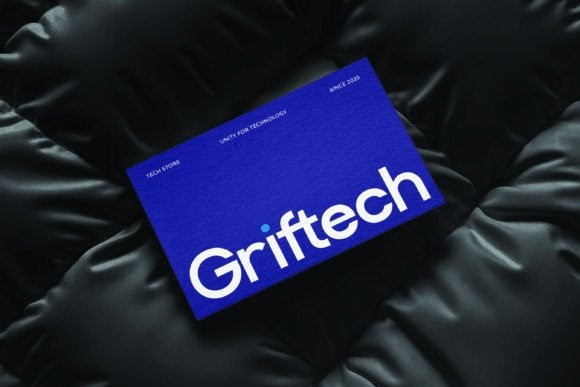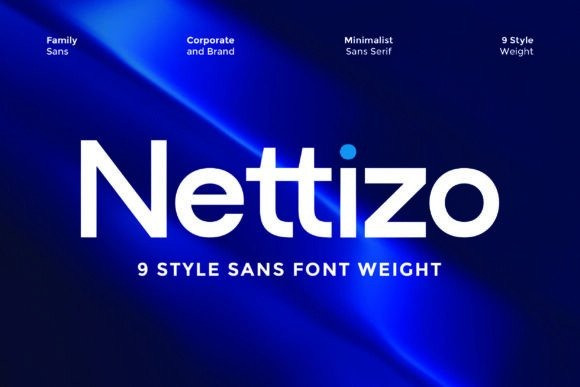
Nettizo Font
Nettizo Font is a minimalist sans serif family font designed to bring clarity, and modern simplicity to your design projects. With its clean lines, balanced spacing, and refined proportions, Nettizo delivers a sleek and professional look while maintaining excellent readability across all applications. Its versatile range of weights makes it suitable for both bold headlines and subtle body text, offering a seamless typographic experience. Whether you’re crafting a brand identity or designing digital interfaces, Nettizo provides a timeless and polished aesthetic.
| Designer Name: | Twistystd |